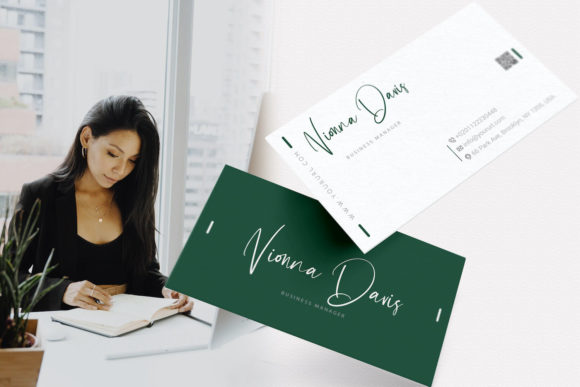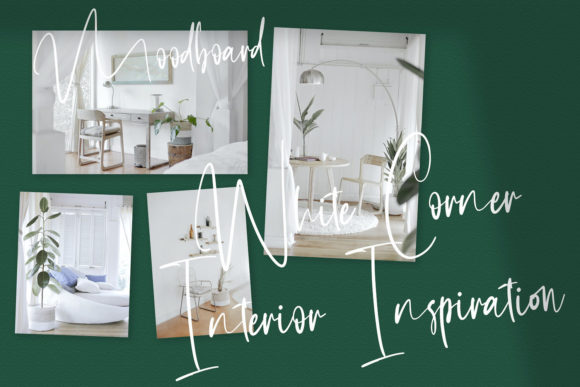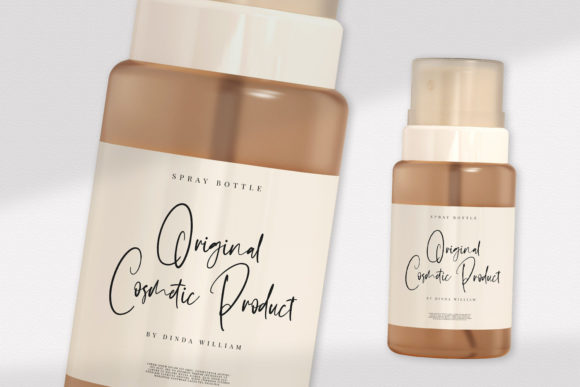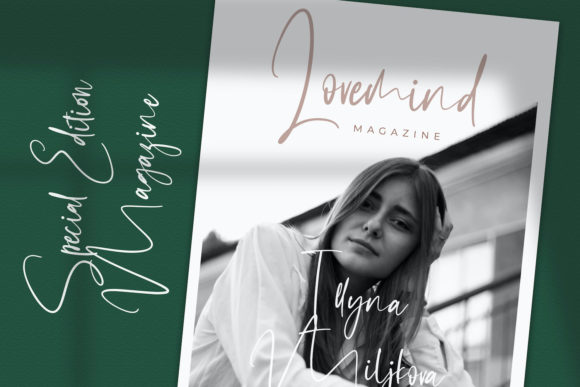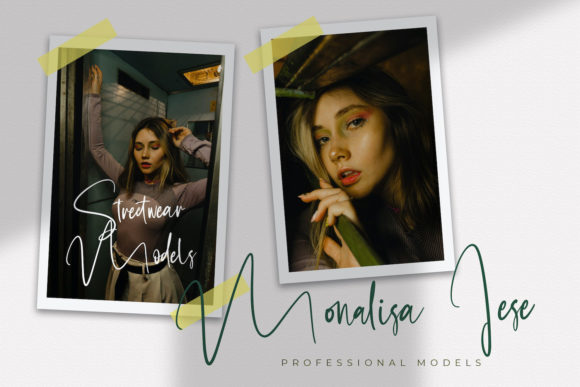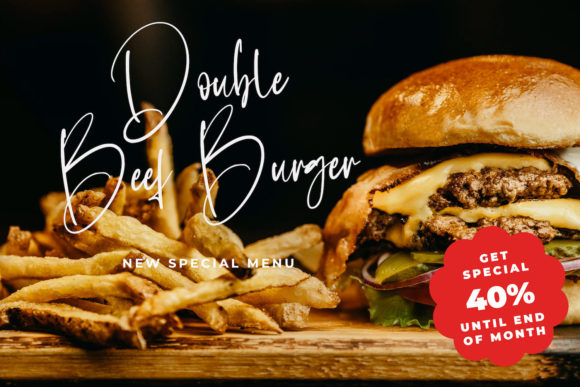
Gareth Bayu Font: Elevate Your Design with Luxury and Sophistication
Are you looking for a font that can add a touch of luxury and sophistication to your design projects? Look no further than the Gareth Bayu font. This thin lettered, stylish, and cursive script font is perfect for designers and crafters who want to create stunning and elegant designs. In this article, we’ll explore the features and benefits of the Gareth Bayu font and how it can help take your designs to the next level.
The Elegance of Gareth Bayu Font
Gareth Bayu is a beautifully crafted font that exudes elegance and sophistication. Its thin letters and cursive script style make it perfect for designs that require a touch of luxury and refinement. Whether you’re working on a branding project, a wedding invitation, or a packaging design, the Gareth Bayu font is sure to impress. Its versatility and flexibility make it suitable for a wide range of design applications, from digital to print.
Key Features of Gareth Bayu Font
- Thin Lettered: The Gareth Bayu font features thin letters that are perfect for creating elegant and sophisticated designs.
- Cursive Script Style: The font’s cursive script style adds a touch of luxury and refinement to any design.
- Versatile: The Gareth Bayu font is highly versatile and can be used for a wide range of design applications, from digital to print.
- Elegant: The font’s elegant design makes it perfect for creating stunning and sophisticated designs.
Benefits of Using Gareth Bayu Font
So, why should you choose the Gareth Bayu font for your design projects? Here are just a few benefits of using this amazing font:
- Adds Luxury and Sophistication: The Gareth Bayu font adds a touch of luxury and sophistication to any design, making it perfect for high-end branding and marketing materials.
- Versatile: The font’s versatility makes it suitable for a wide range of design applications, from digital to print.
- Easily Readable: Despite its thin letters, the Gareth Bayu font is easily readable, making it perfect for body text and headlines.
- Unique: The font’s unique design makes it stand out from other fonts, ensuring that your designs will be noticed.
How to Use Gareth Bayu Font in Your Designs
Using the Gareth Bayu font in your designs is easy. Here are a few tips to get you started:
- Pair it with Other Fonts: Pair the Gareth Bayu font with other fonts to create stunning and unique typography.
- Use it for Headlines and Titles: The font’s elegant design makes it perfect for headlines and titles.
- Add it to Your Branding Materials: Use the Gareth Bayu font to add a touch of luxury and sophistication to your branding materials, such as business cards and brochures.
- Experiment with Different Colors: Experiment with different colors to find the perfect combination that works with your design.
In conclusion, the Gareth Bayu font is a stunning and elegant font that can add a touch of luxury and sophistication to any design project. Its versatility, readability, and unique design make it perfect for designers and crafters who want to create stunning and elegant designs. Whether you’re working on a branding project, a wedding invitation, or a packaging design, the Gareth Bayu font is sure to impress. So, why wait? Download the Gareth Bayu font today and take your designs to the next level!
- What is the Gareth Bayu font? The Gareth Bayu font is a thin lettered, stylish, and cursive script font that is perfect for adding a touch of luxury and sophistication to any design project.
- Is the Gareth Bayu font suitable for digital use? Yes, the Gareth Bayu font is highly versatile and can be used for a wide range of design applications, from digital to print.